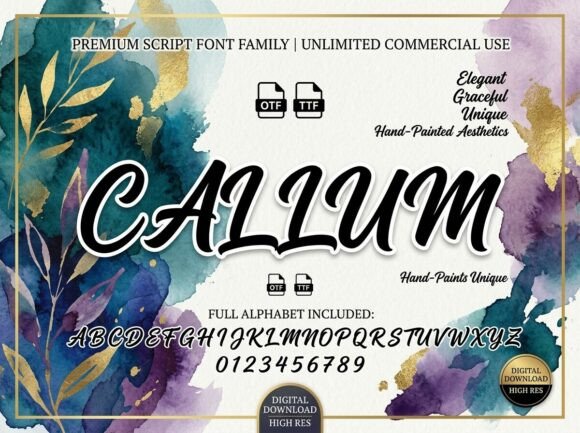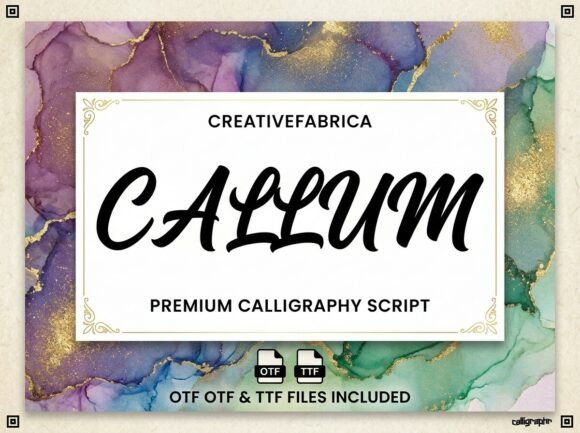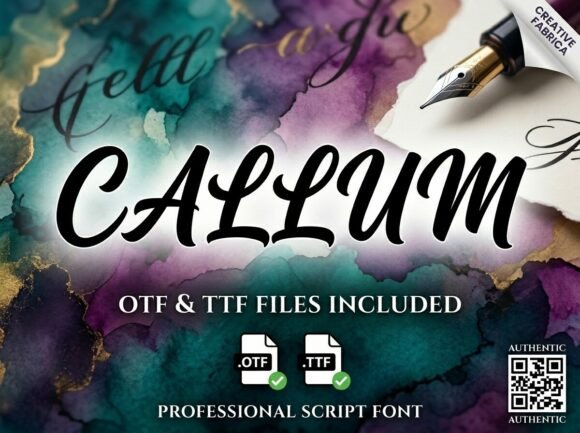
Introducing Callum Font: A Stunning Decorative Display Font
Are you tired of using the same old fonts for your designs? Look no further than Callum Font, a unique and artistic display font that’s sure to turn heads. With its strong visual personality and decorative elements, this font is perfect for creators who want to add a touch of elegance and sophistication to their work.
What Makes Callum Font Special?
Callum Font is a decorative display font designed to be the center of attention. Its unique artistic elements and strong visual personality make it perfect for bold headlines, artistic logos, and creative packaging. Whether you’re a designer, craftsperson, or DIY enthusiast, this font is sure to elevate your work to the next level.
Key Features of Callum Font
• Unique Artistic Elements: Callum Font features intricate and decorative elements that add a touch of elegance to any design.
• Strong Visual Personality: This font has a bold and eye-catching appearance that’s sure to grab attention.
• Versatile: Callum Font is perfect for a variety of design applications, including bold headlines, artistic logos, and creative packaging.
• Professional and Polished Finish: Despite its decorative nature, Callum Font maintains a professional and polished finish that’s suitable for even the most high-end designs.
⚠️ IMPORTANT NOTE BEFORE PURCHASE: Callum Font is an ALL-CAPS (Uppercase Only) display typeface. It does not include lowercase letters. It is specifically designed for high-impact headlines, logos, and decorative initials where every letter is a work of art.
Who is Callum Font For?
Callum Font is perfect for:
• Graphic Designers: Add a touch of elegance and sophistication to your designs with this unique and artistic font.
• Crafters: Use Callum Font to create beautiful and eye-catching craft projects, such as signs, banners, and DIY decorations.
• DIY Enthusiasts: Add a professional touch to your DIY projects with this high-quality display font.
Tips for Using Callum Font
Here are a few tips for getting the most out of Callum Font:
• Use it for Headlines: Callum Font is perfect for bold headlines and titles. Use it to grab attention and add visual interest to your designs.
• Experiment with Colors: Try pairing Callum Font with different colors and textures to add depth and visual interest to your designs.
• Use it for Logos: Callum Font is a great choice for logos and branding. Its unique and artistic elements make it perfect for creating a memorable and eye-catching logo.
Callum Font is a stunning decorative display font that’s sure to elevate your designs to the next level. With its unique artistic elements, strong visual personality, and versatility, this font is perfect for creators who want to break away from the ordinary. So why wait? Purchase Callum Font today and start creating beautiful and eye-catching designs that demand attention.